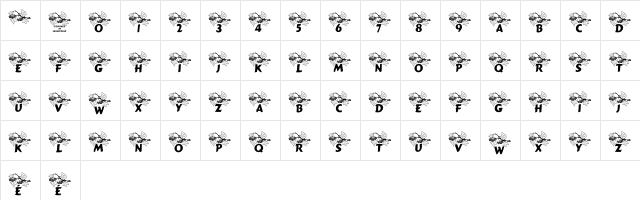
LCR Autumn Regular
Design Context for LCR Autumn
LCR Autumn is a composed and adaptable typeface that performs quietly and consistently across a wide range of design contexts.